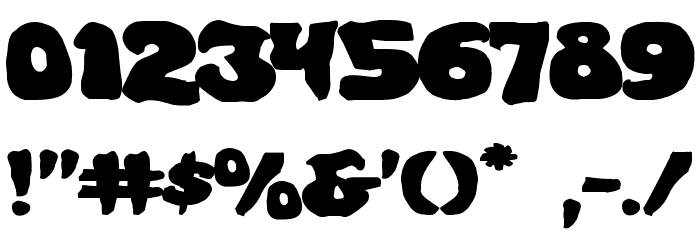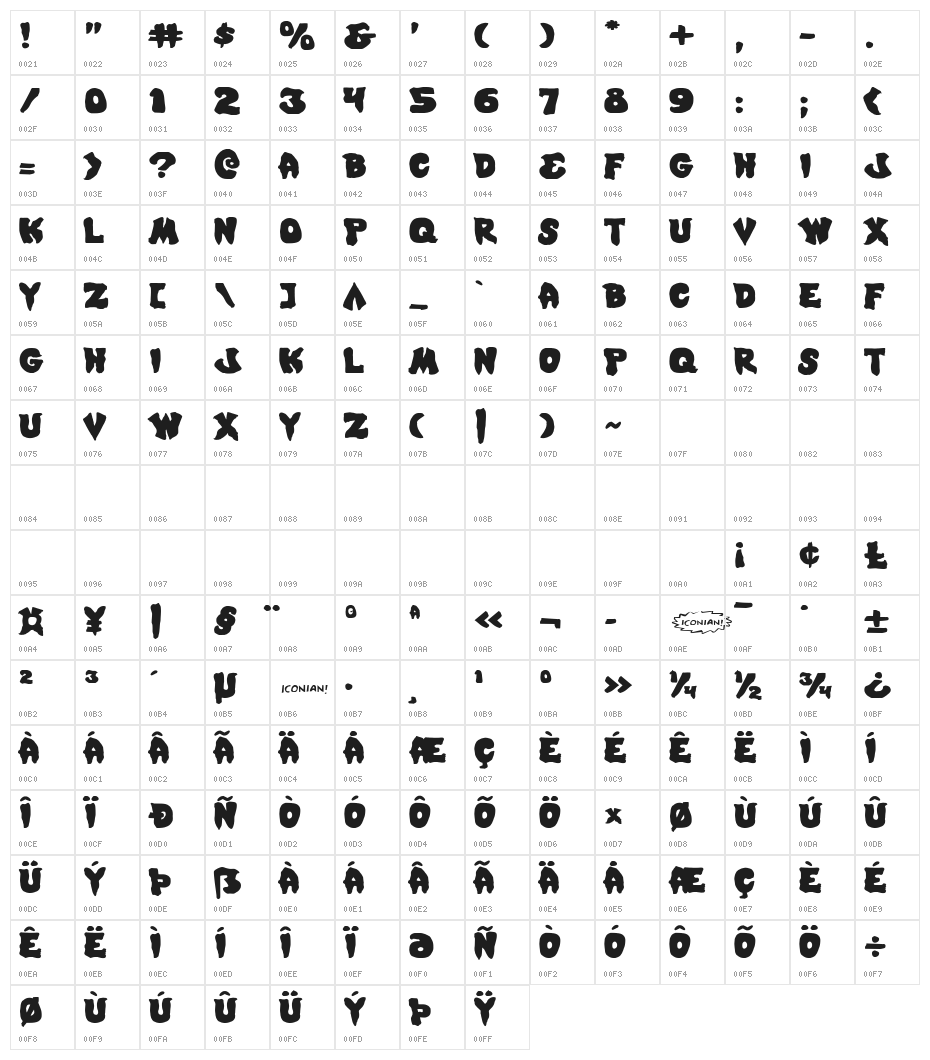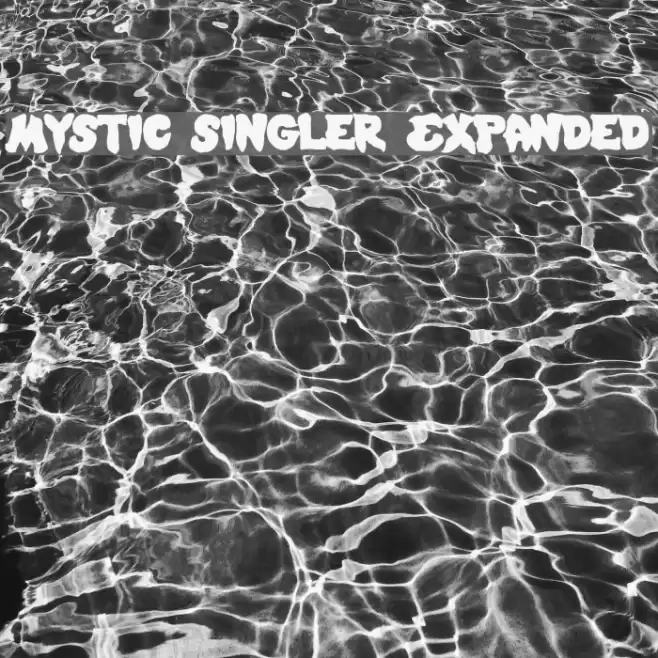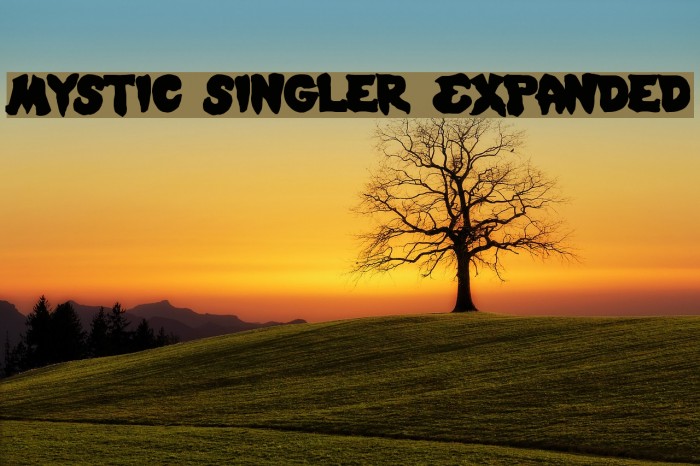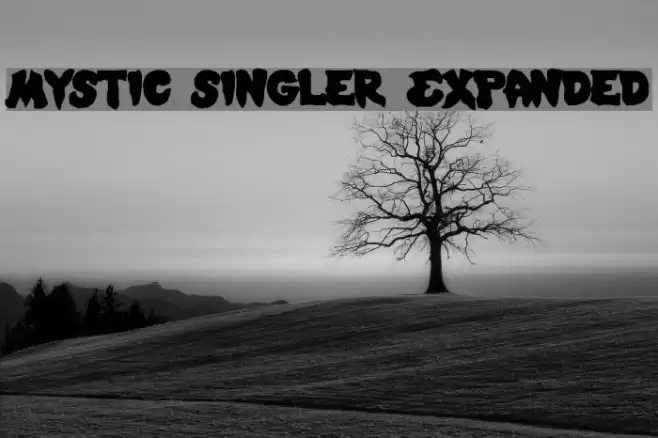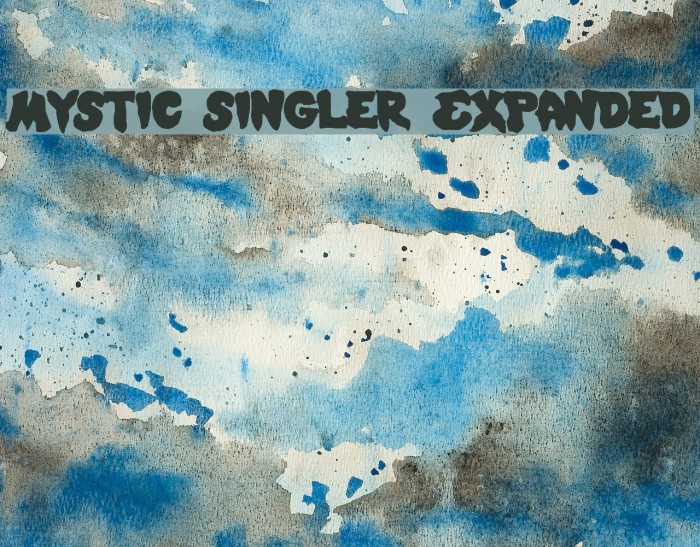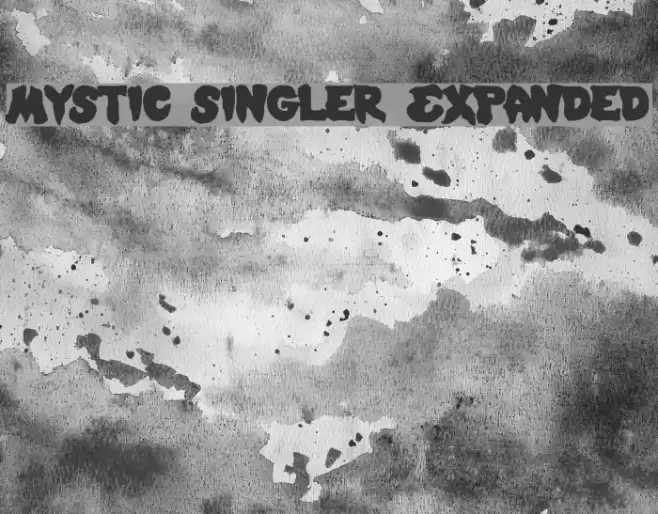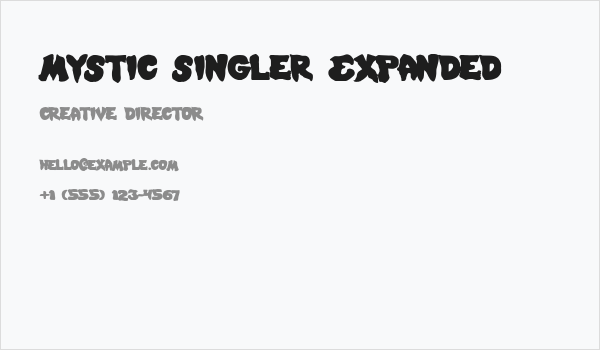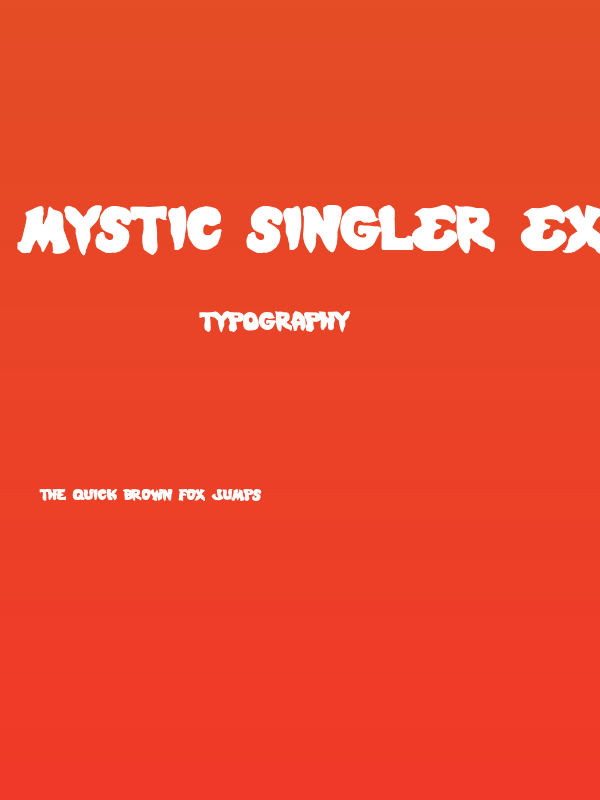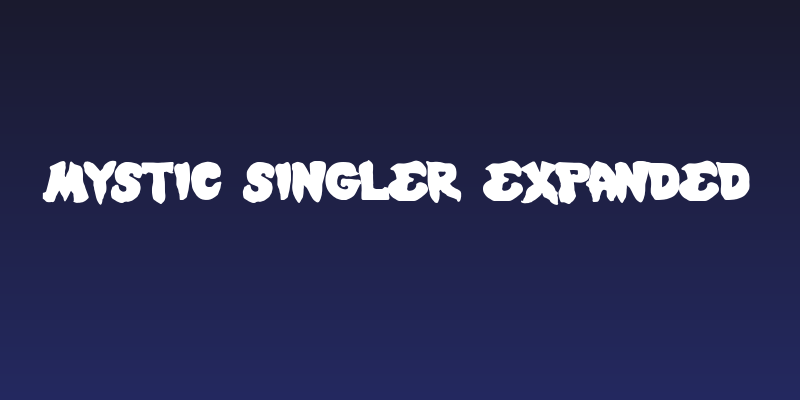
Mystic Singler Expanded Font
Mystic Singler Expanded Description
This font features a bold and dramatic style with thick, irregular strokes that give it a unique, hand-drawn appearance. The characters are heavily stylized, with a playful and slightly chaotic form that suggests movement and energy. The uppercase and lowercase letters maintain a consistent weight, creating a cohesive look across the alphabet. The numbers and special characters follow the same design principles, ensuring uniformity throughout. Its expanded width and exaggerated forms make it stand out, ideal for grabbing attention. The font's organic and artistic feel makes it suitable for creative and unconventional projects.
| Proposed Projects | Ideal for posters, album covers, graffiti art, and any project requiring a bold, artistic touch. |